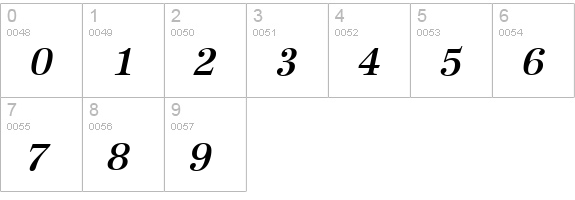
AntiquaStd-Medium-Italic is a balanced, medium-weight, italic variant in the AntiquaStd typeface family \xE2\x80\x94 well suited to sub-headlines, navigation, and balanced editorial work.
AntiquaStd-Medium-Italic font exudes elegance and sophistication with its graceful slanted design. The medium weight strikes the perfect balance between boldness and finesse, making it ideal for adding a touch of refinement to any project. Its italicized form adds a hint of flair and style, making it a versatile choice for both formal and creative endeavors. This exquisite font is a must-have in any designer's toolkit, offering a timeless appeal that transcends trends. Whether used in print or digital mediums, AntiquaStd-Medium-Italic brings a touch of classic charm to any text it adorns. Its legibility and readability ensure that your message comes across clearly and beautifully. The best part? AntiquaStd-Medium-Italic font is available for free download at FontsMarket.com. Now you can elevate your designs with this exquisite typeface without breaking the bank. Don't miss out on this opportunity to enhance your projects with the timeless beauty of AntiquaStd-Medium-Italic font.